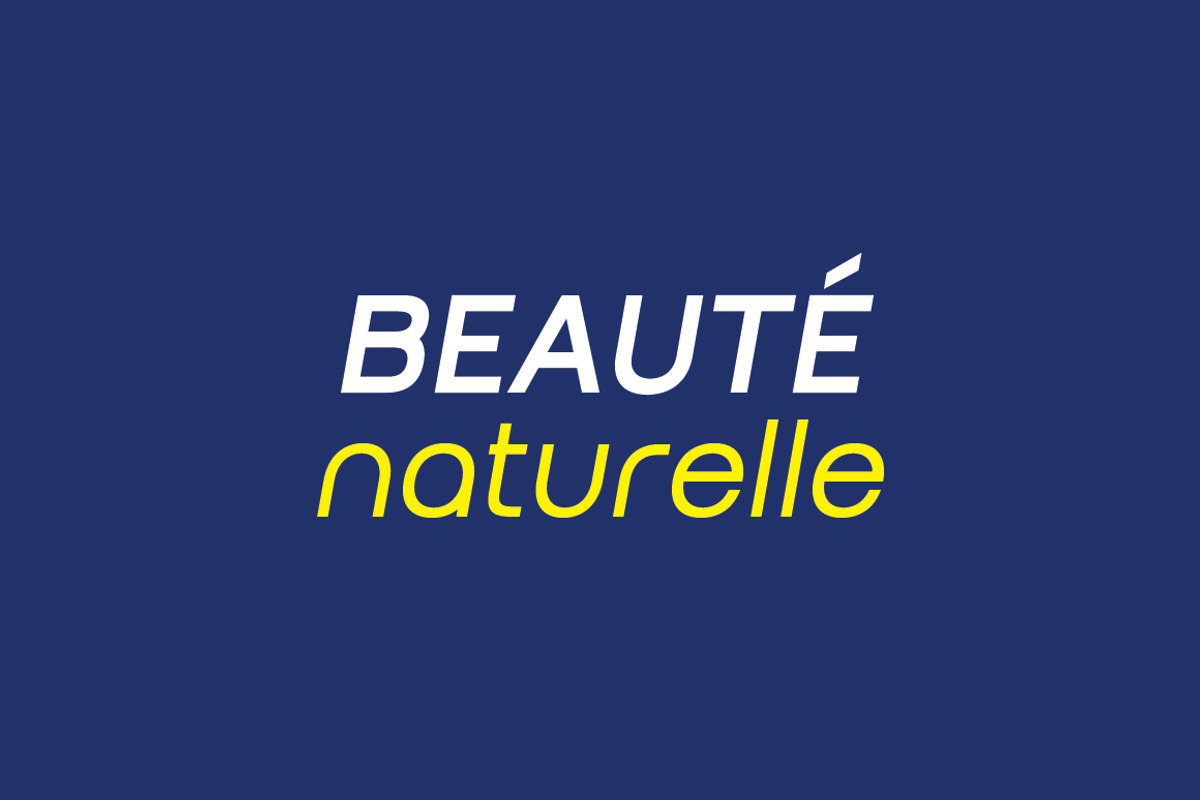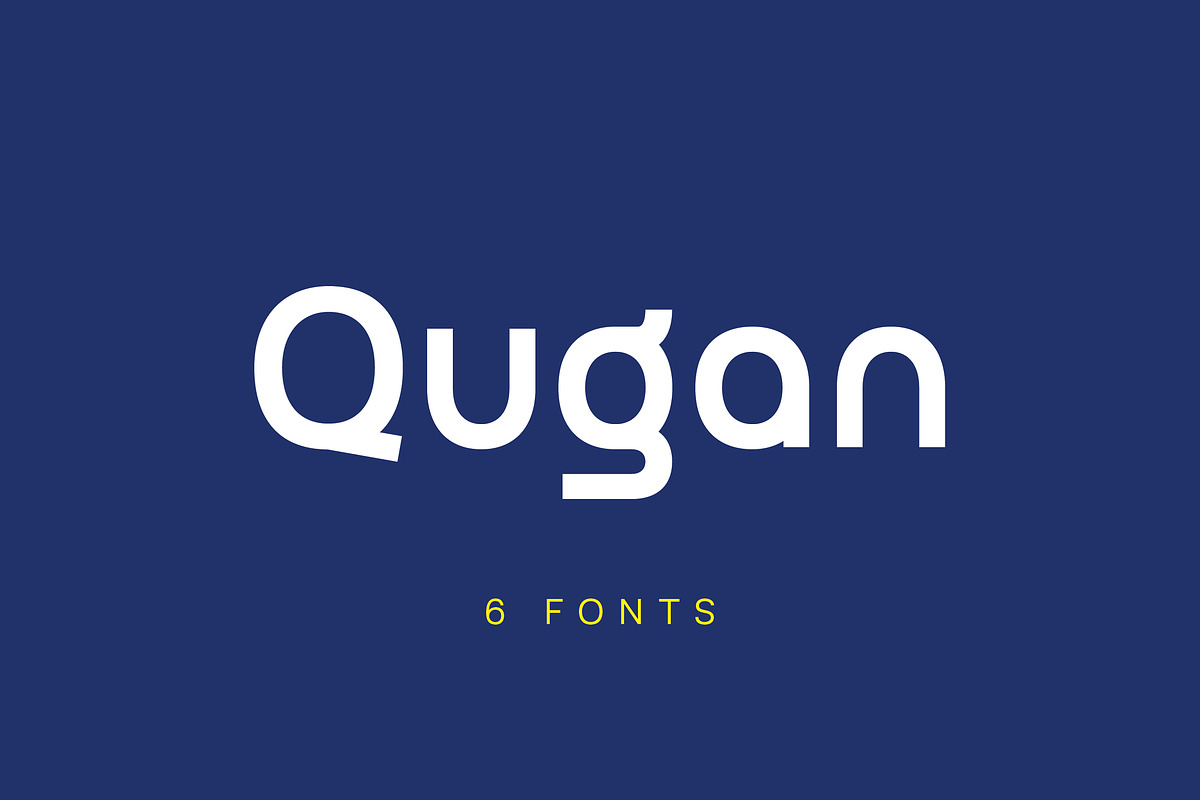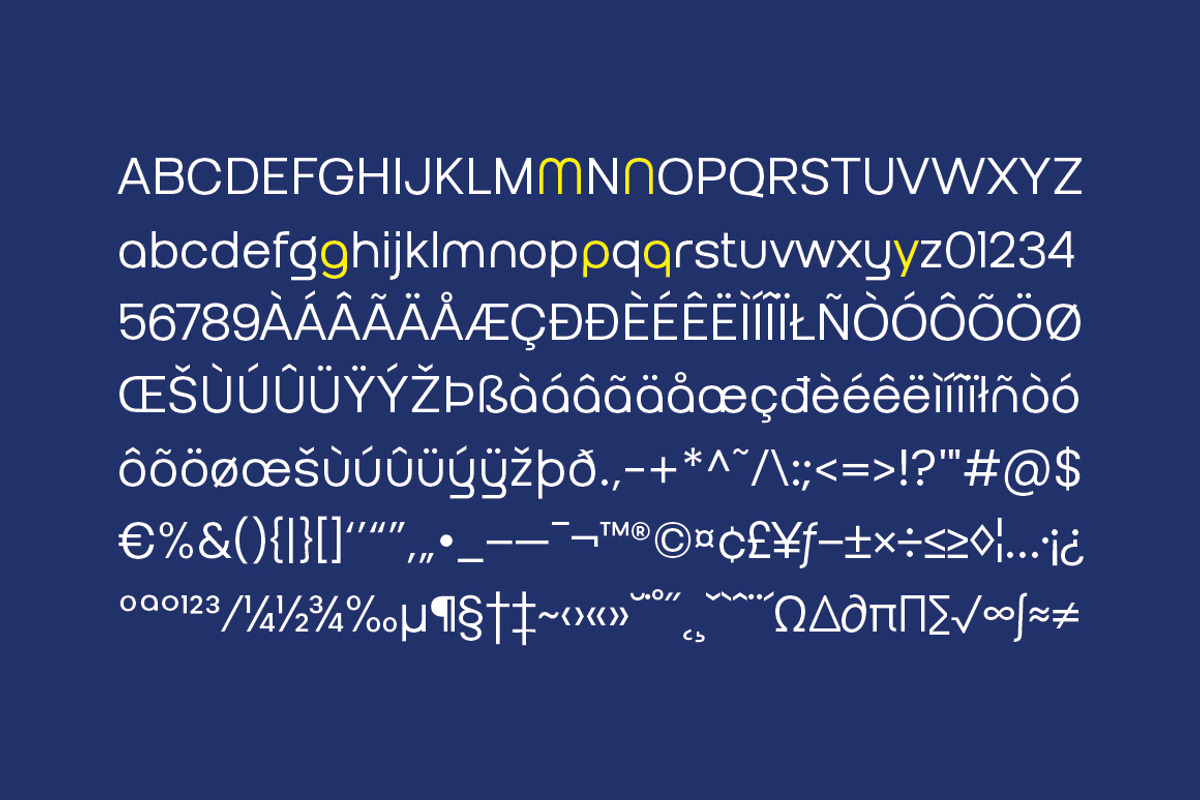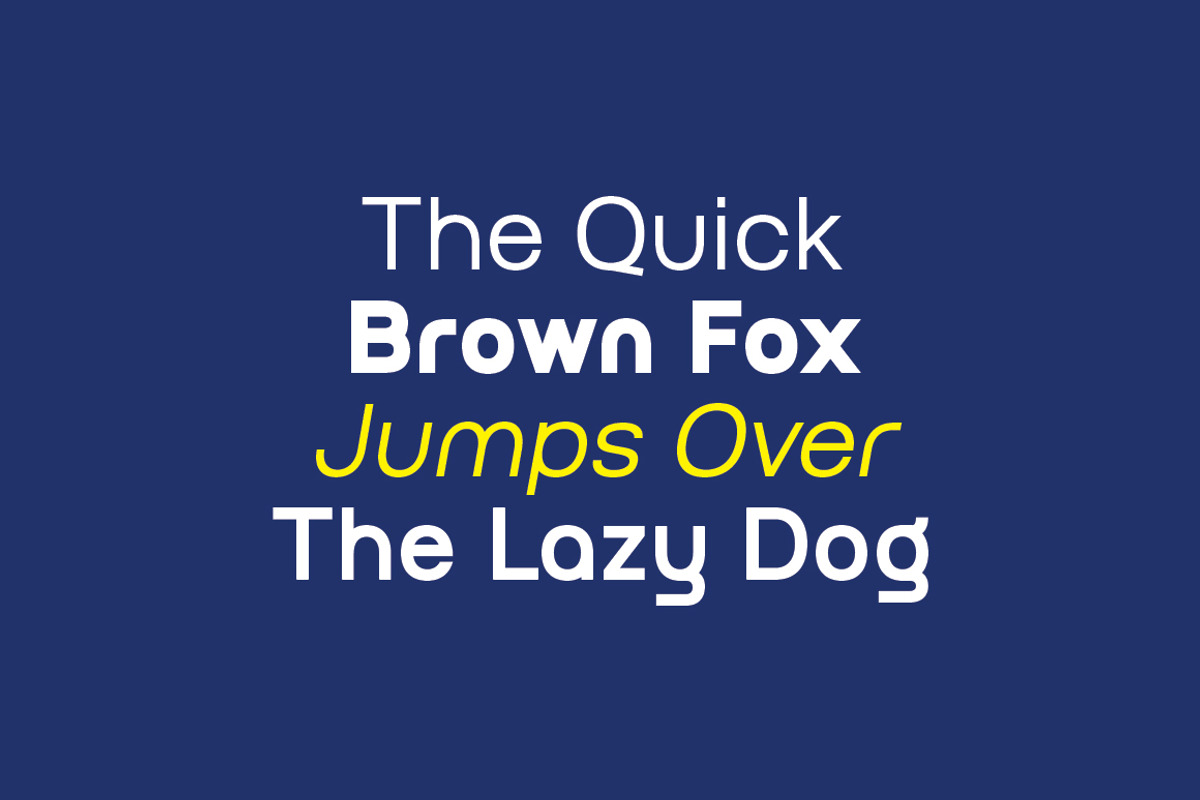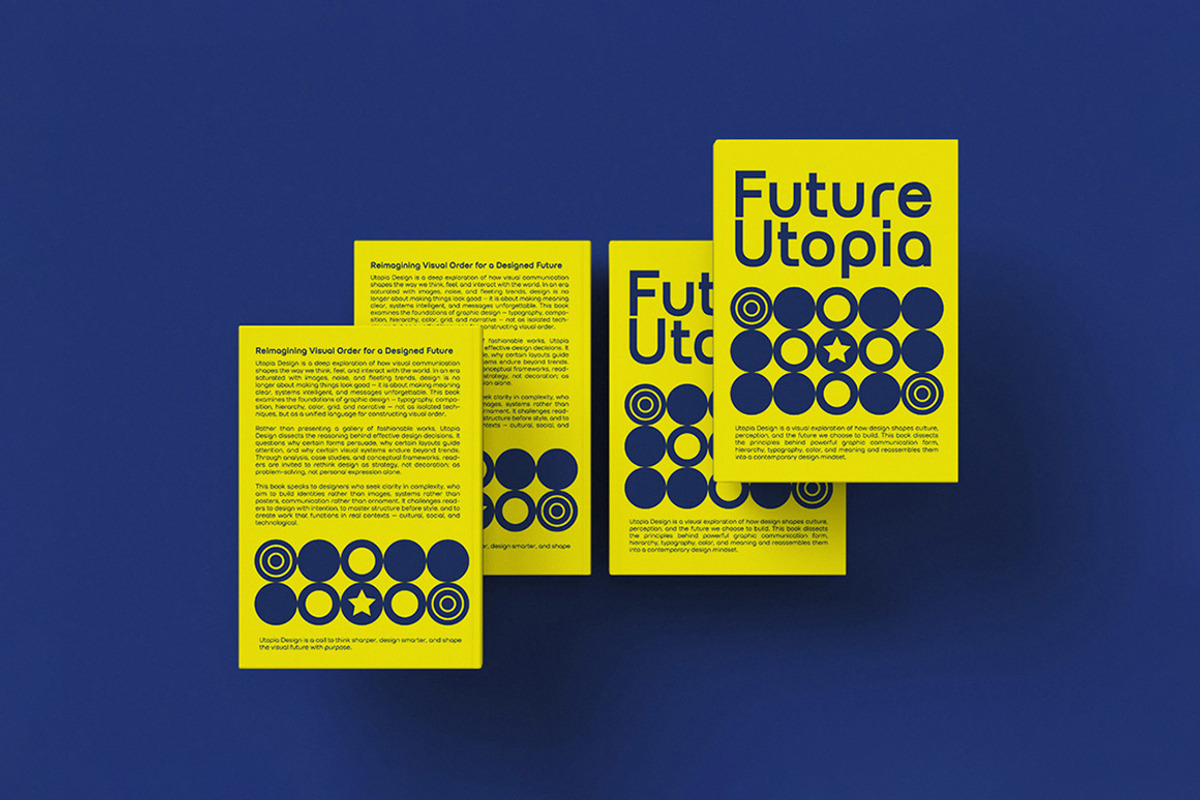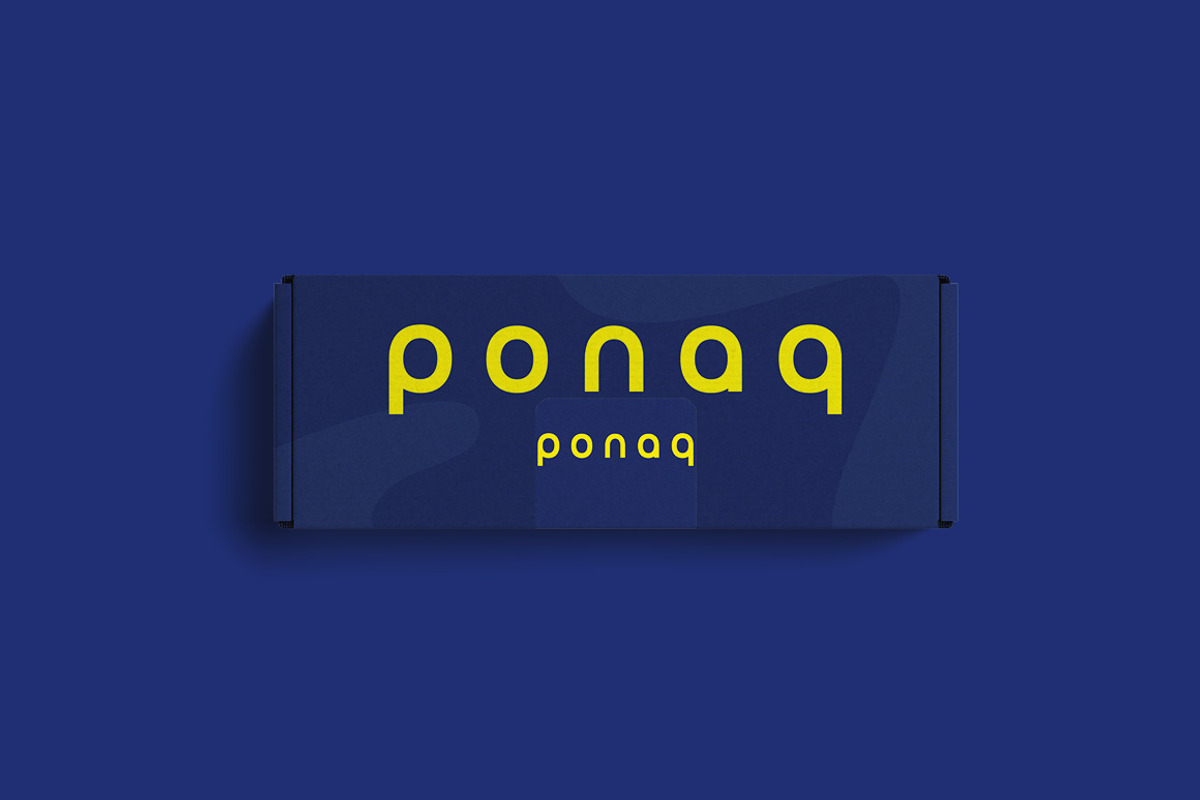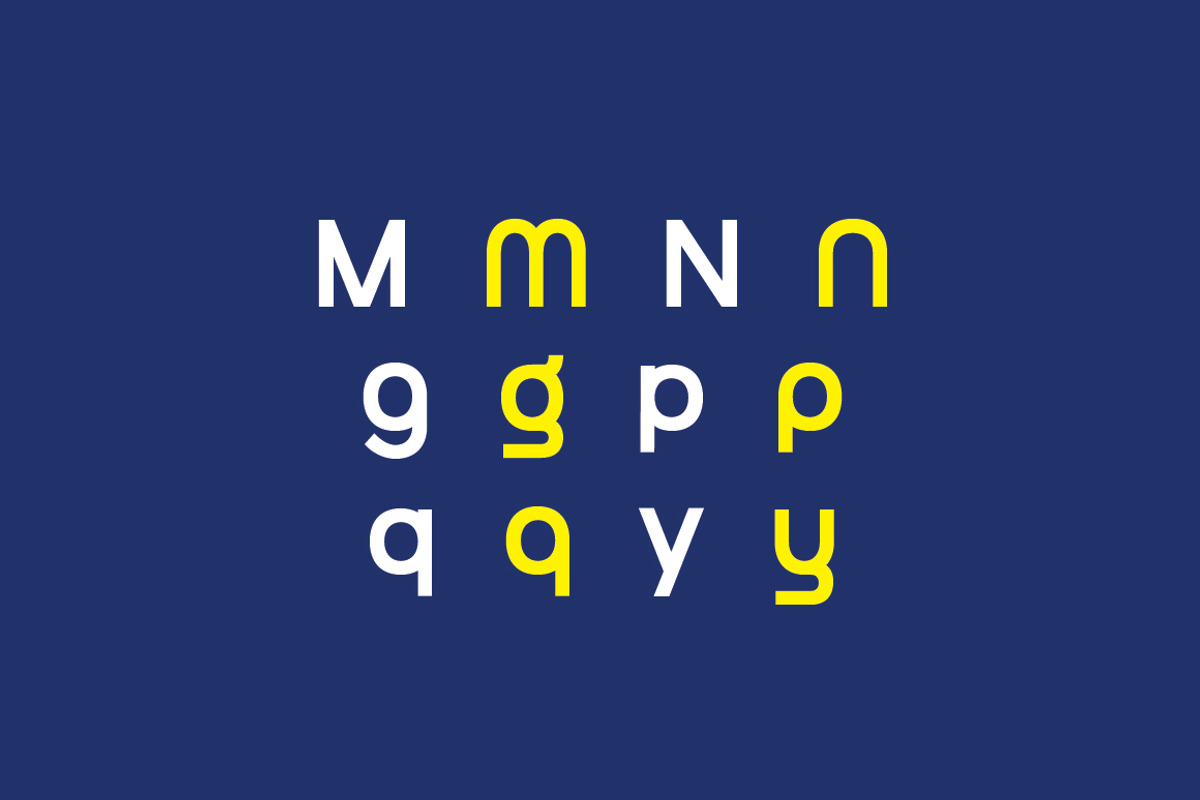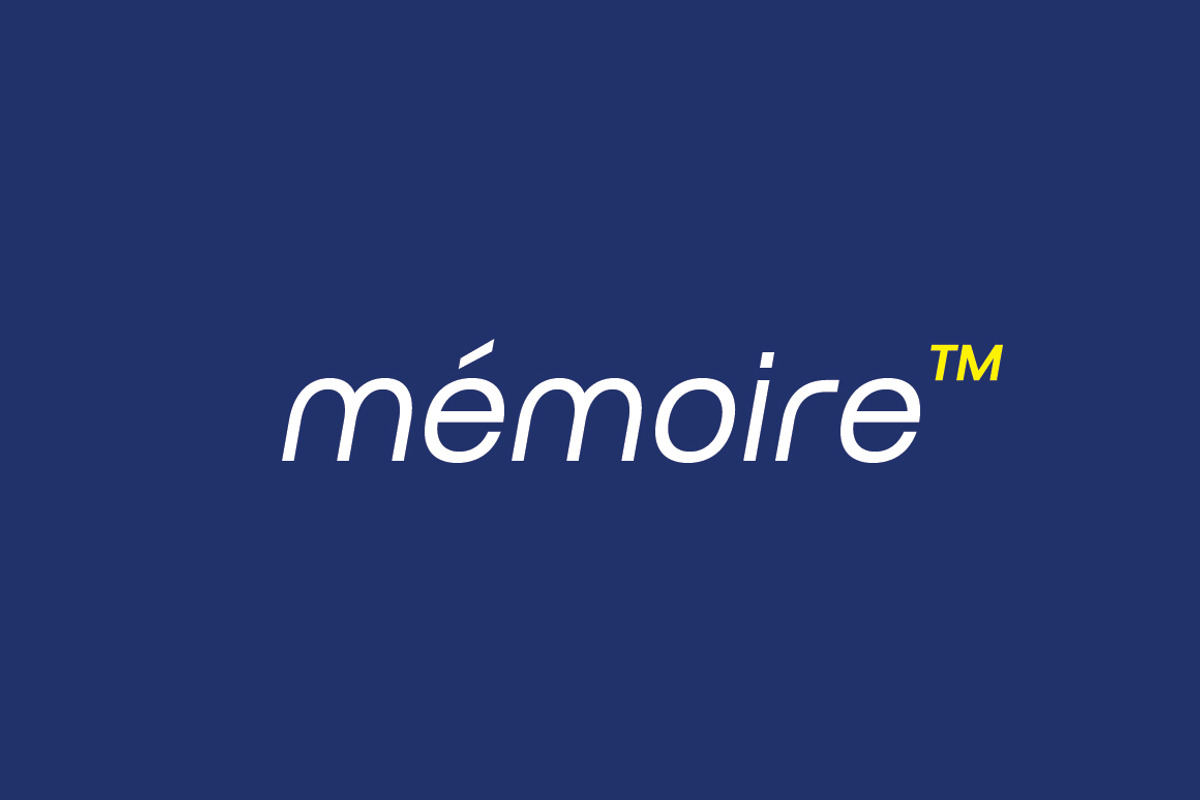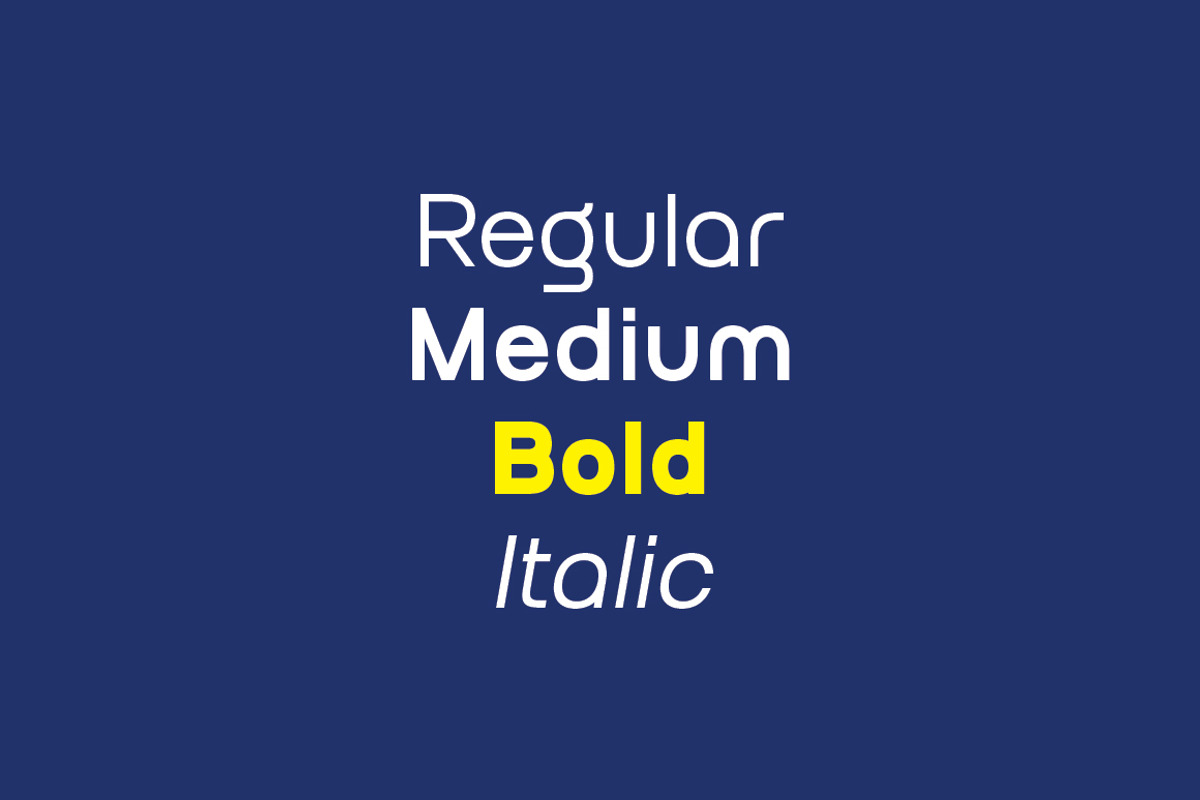
Qugan Modern Logo and Branding Font
Qugan is a versatile font designed specifically for logos and branding. Each character is carefully crafted to create strong, memorable logos, while the regular version remains comfortable and readable for longer text. You can easily build and use high quality logos with confidence.
- Regular, Medium, Bold, plus Latin versions
- Uppercase, Lowercase, Numerals, and Punctuation
- Stylish alternate glyphs